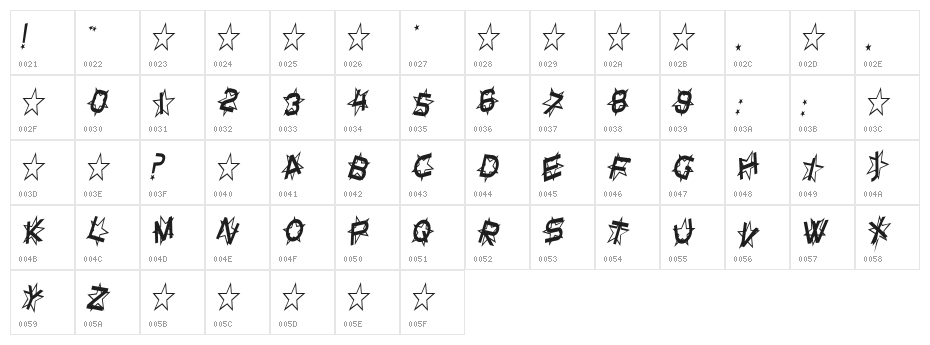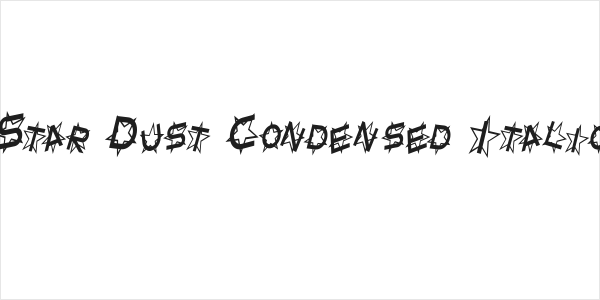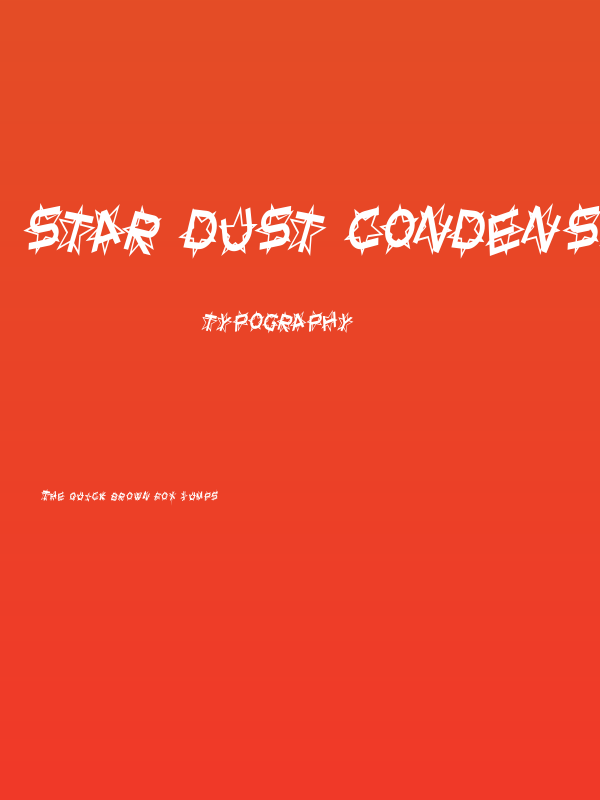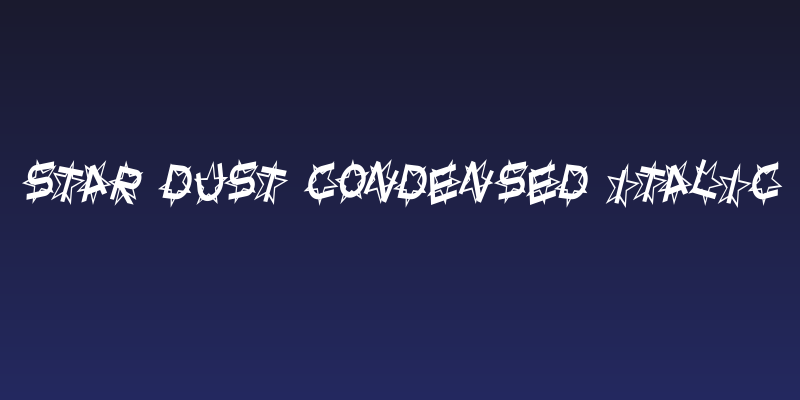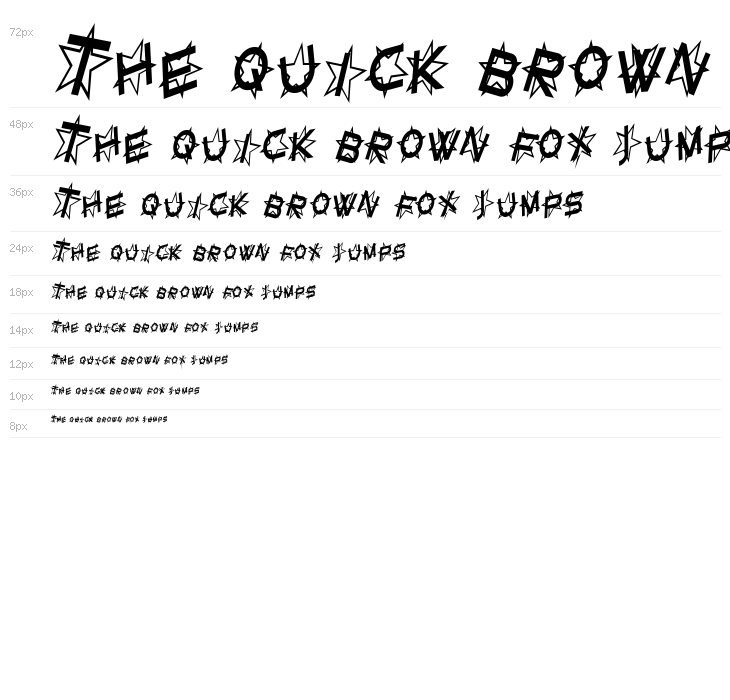
Star Dust Condensed Italic Font
Star Dust Condensed Italic Description
This font features a bold and edgy design with star-like elements integrated into each character, giving it a dynamic and energetic appearance. The letters are condensed and italicized, enhancing the sense of movement and flair. The sharp angles and unique star motifs make it stand out, perfect for projects that require a touch of creativity and boldness. The font includes both uppercase and lowercase letters, numbers, and a selection of special characters, all maintaining the distinctive star-themed style.